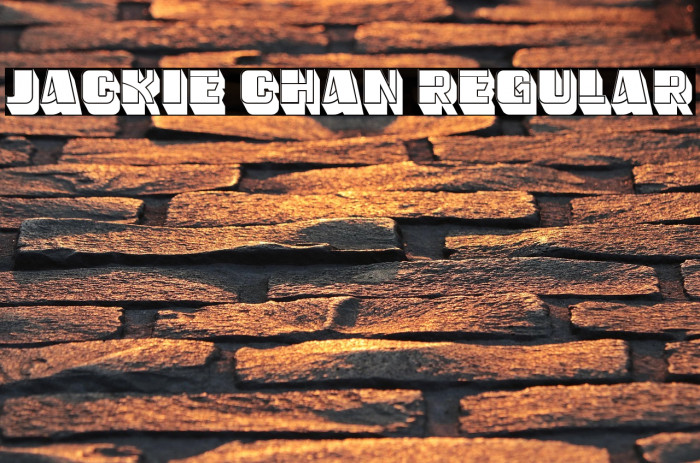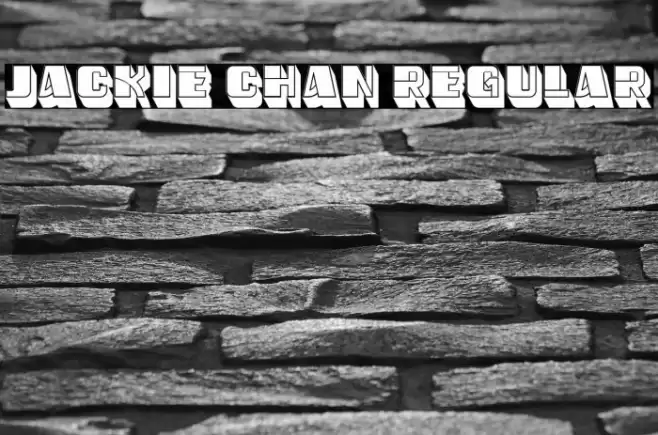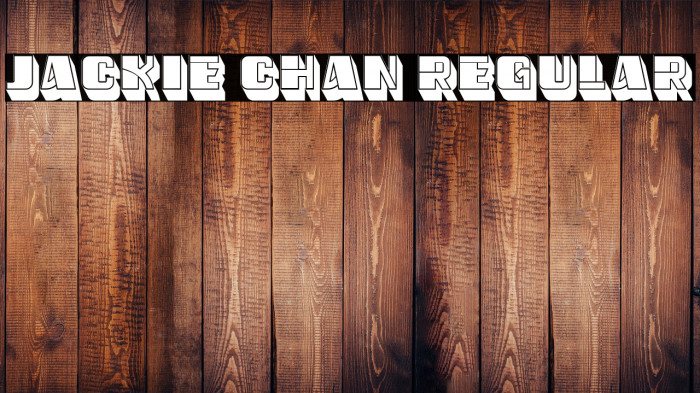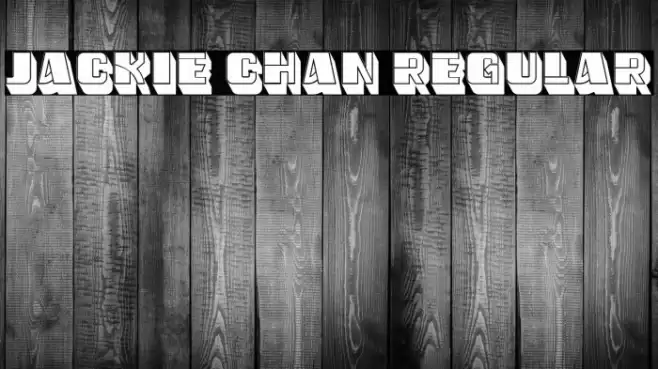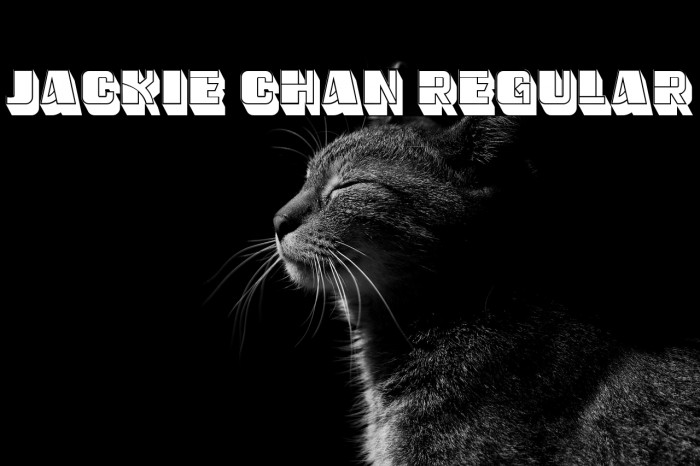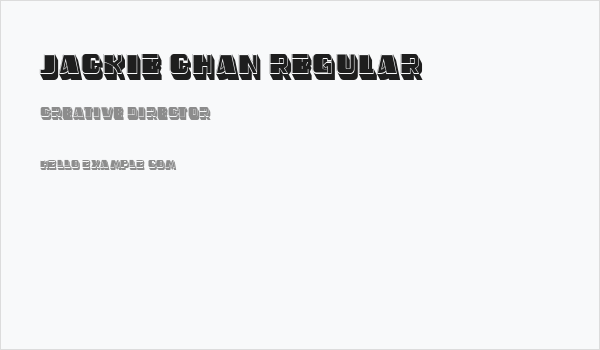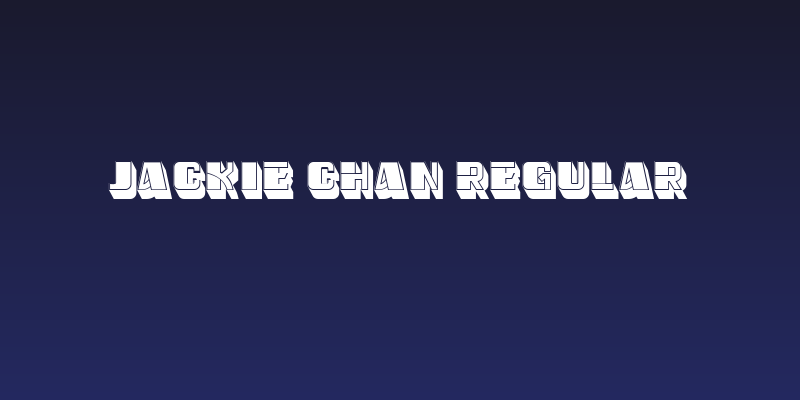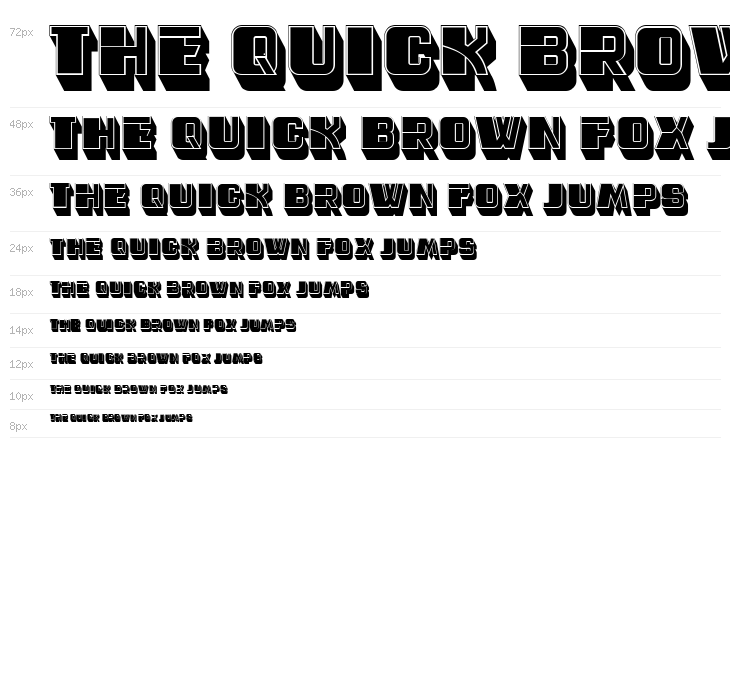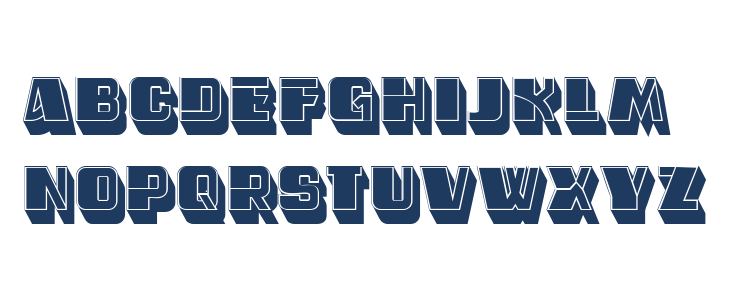
Jackie Chan Regular Font
Jackie Chan Regular Description
This font features a bold, three-dimensional design with a strong, impactful presence. The characters are uppercase only, with a shadow effect that gives them a sense of depth and weight. The strokes are thick and consistent, creating a uniform appearance across all letters. The style is distinctly modern and geometric, with sharp angles and clean lines that contribute to its striking visual appeal. The font's design is highly decorative, making it ideal for attention-grabbing headlines or titles. Its boldness and unique style make it less suitable for body text but perfect for projects that require a strong visual impact.
Proposed ProjectsIdeal for posters, logos, headlines, and any design requiring a strong visual impact.